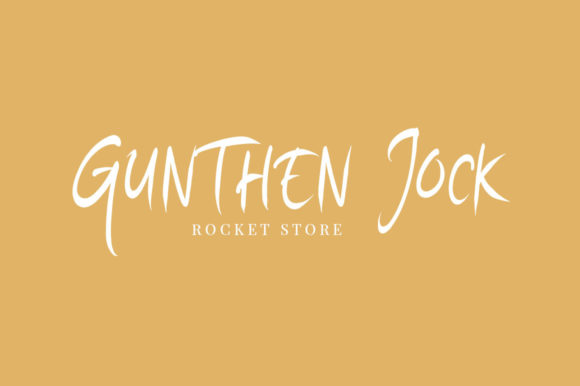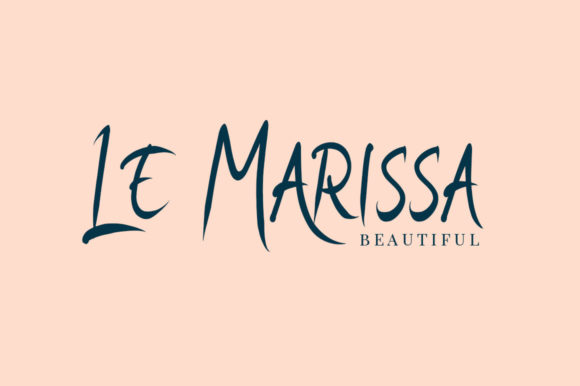
Convert Light Font
db-ku.com - Script & Handwritten -- Convert Light is a fancy and elegant handcrafted font that was created to impress your audience and make your branding shine. Make your projects dance with this elegant and wonderful font wherever you use it. This font is PUA encoded which means you can access all of the amazing glyphs and ligatures with ease!